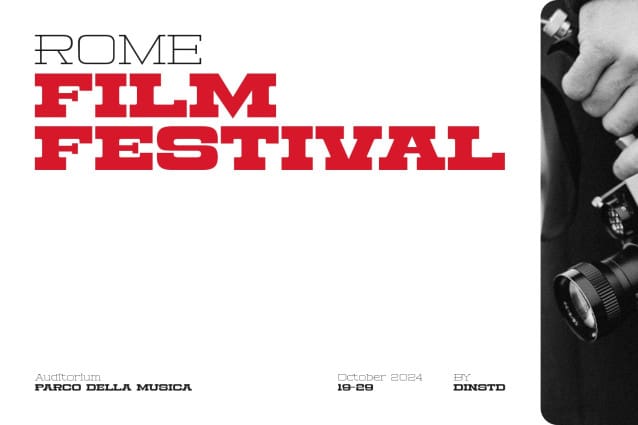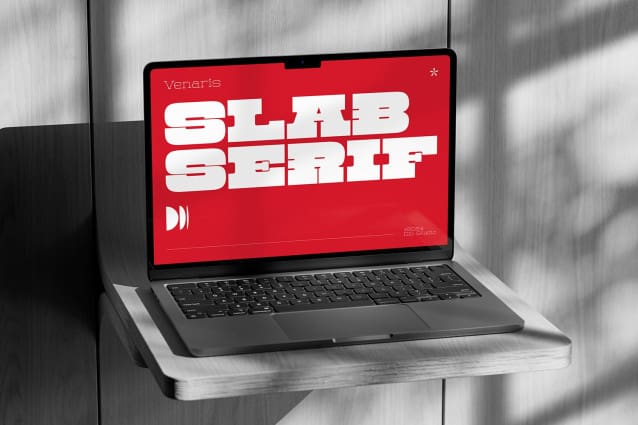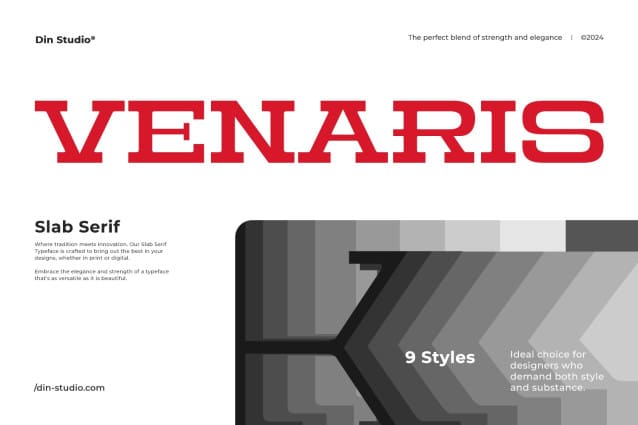
Venaris Font
Venaris Font-a sophisticated slab serif font family that embodies modern elegance. Crafted in 9 distinct weights, Venaris offers versatility and refinement for a wide range of design projects. Its clean lines and balanced proportions provide a contemporary aesthetic, while the robust slab serifs add a touch of timeless strength. Elevate your typography with the polished style of Venaris.